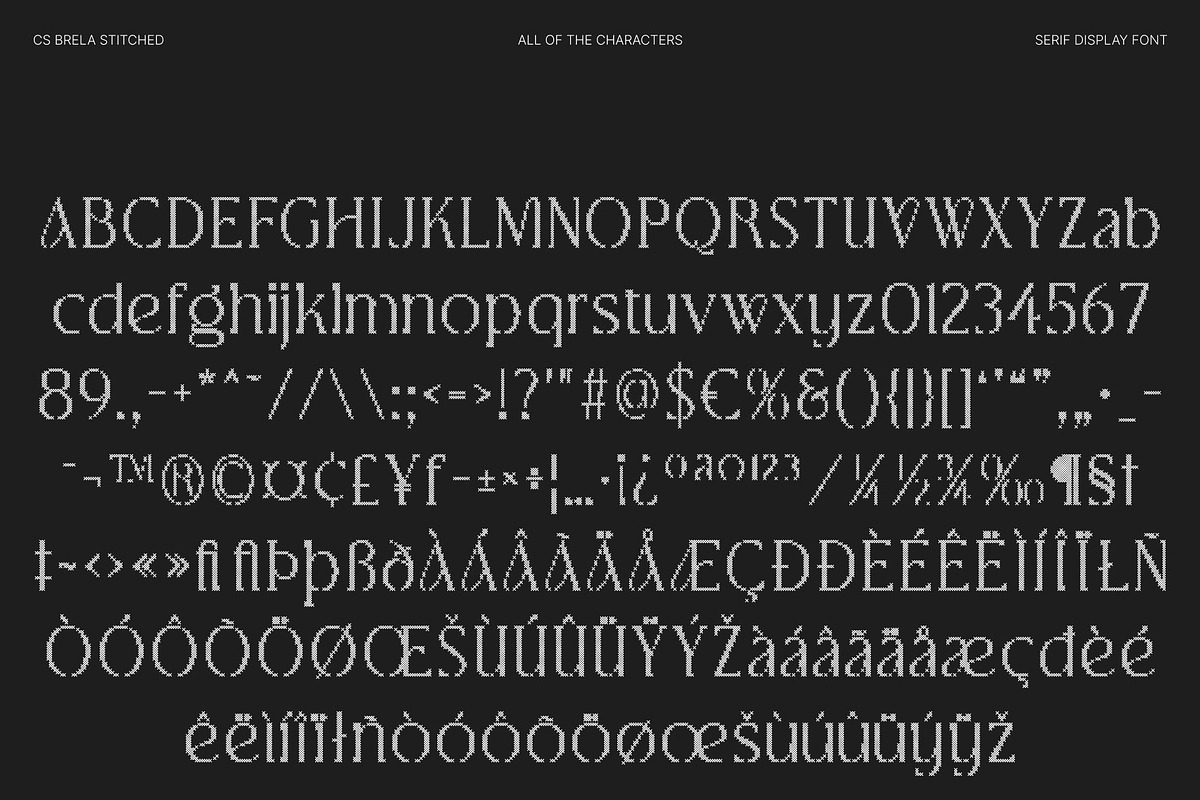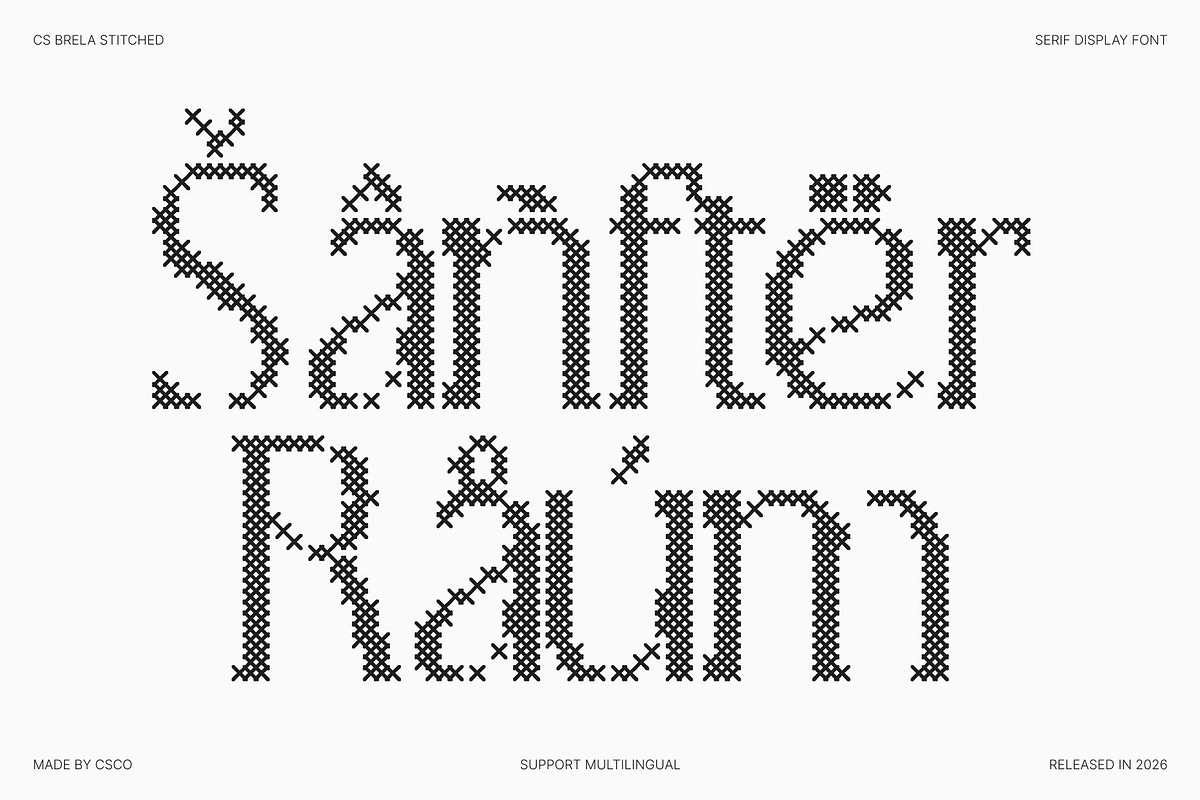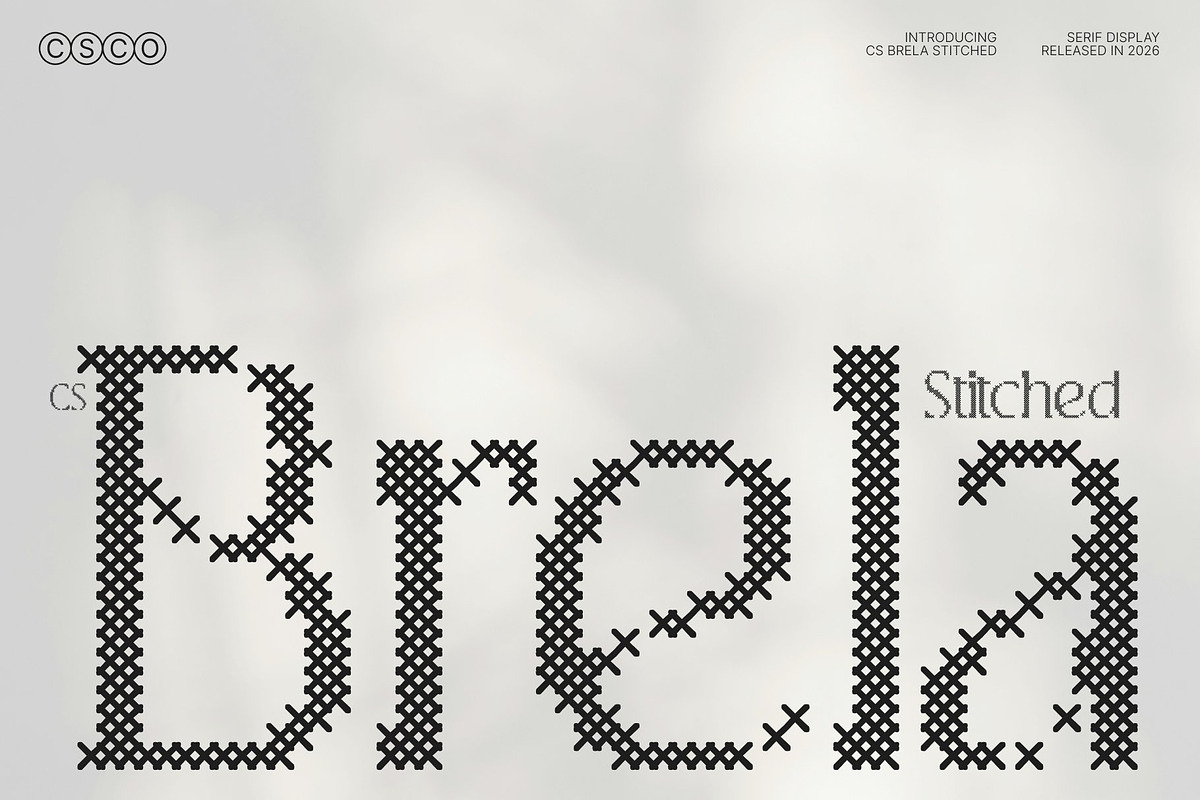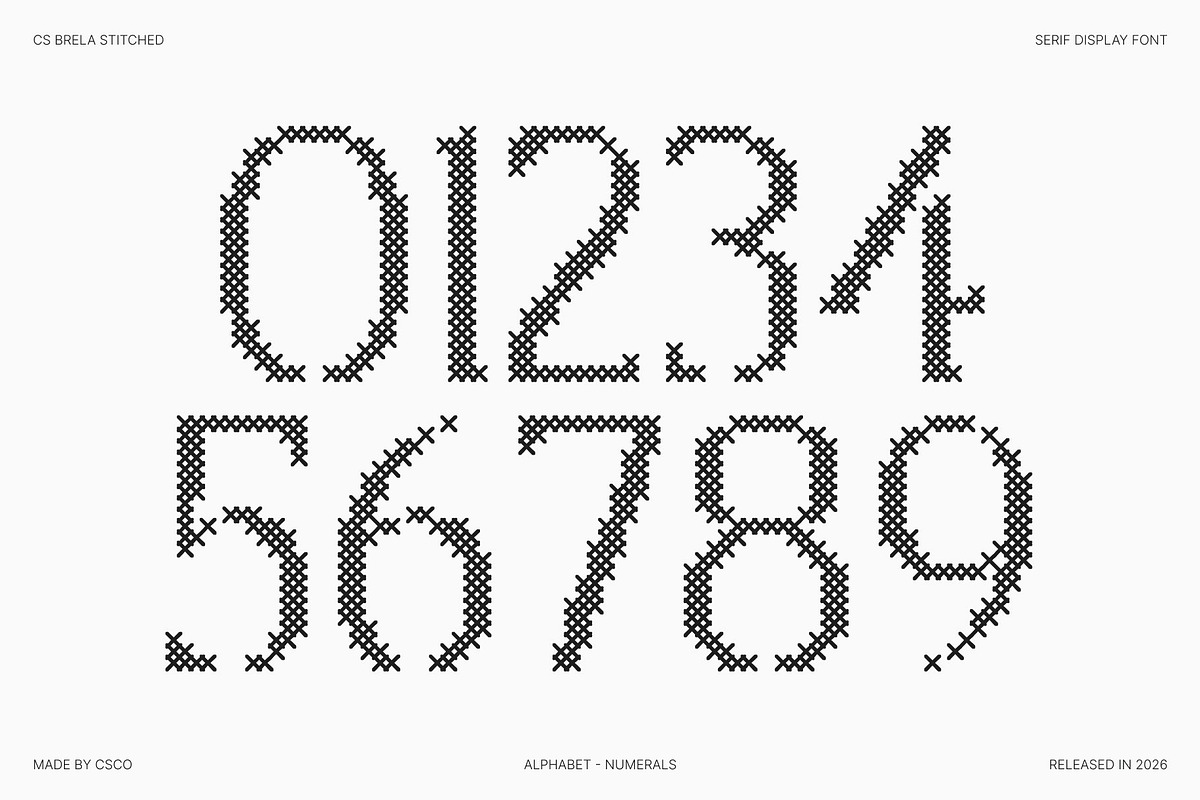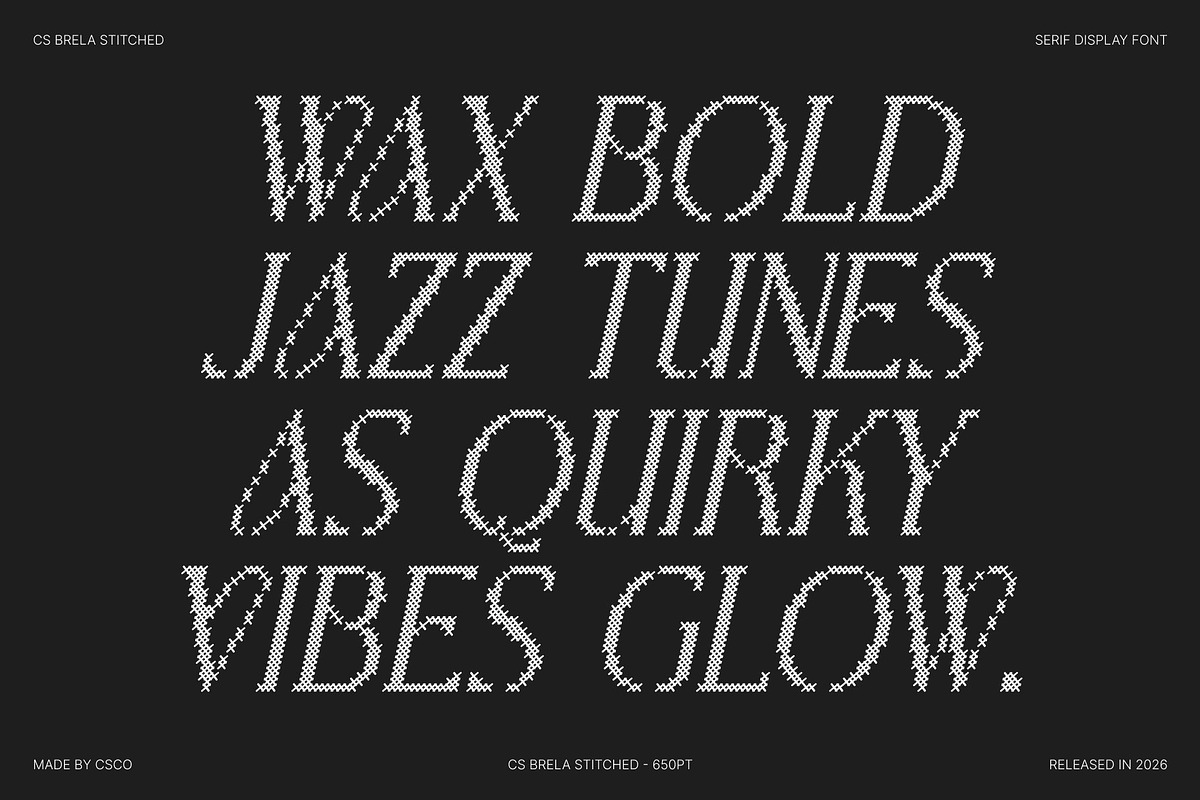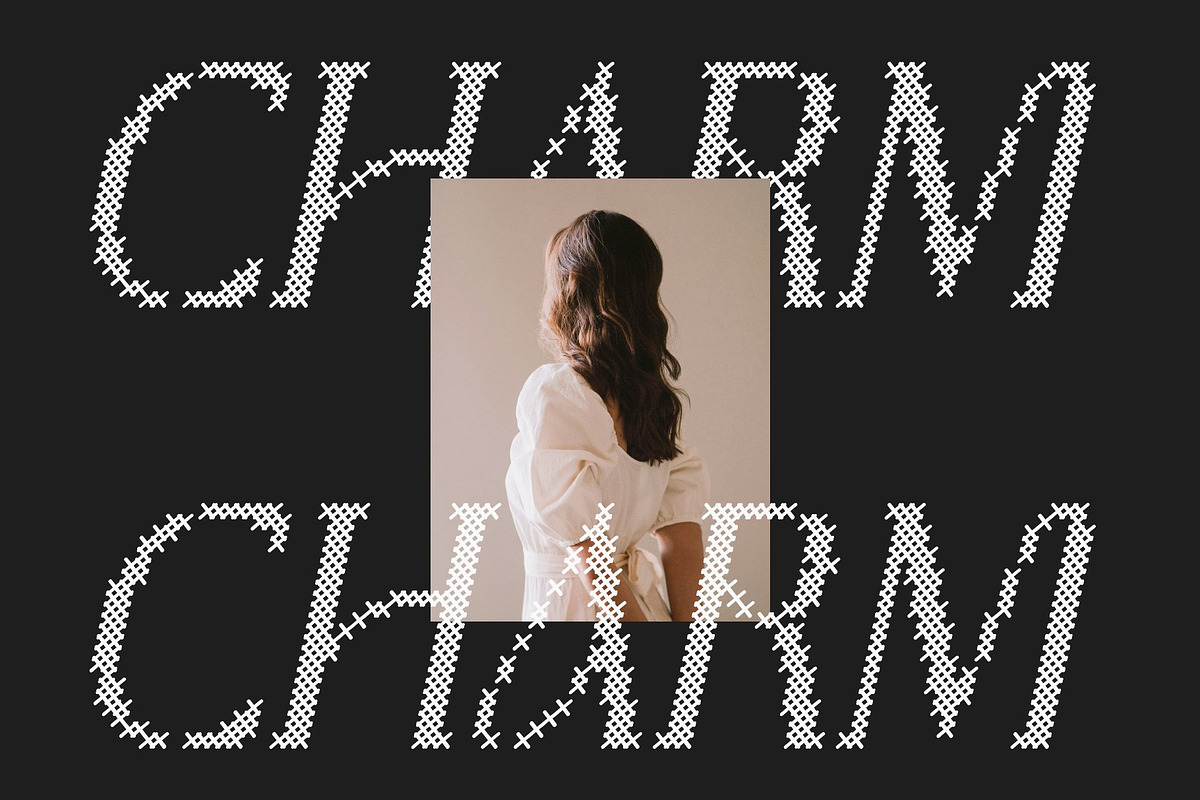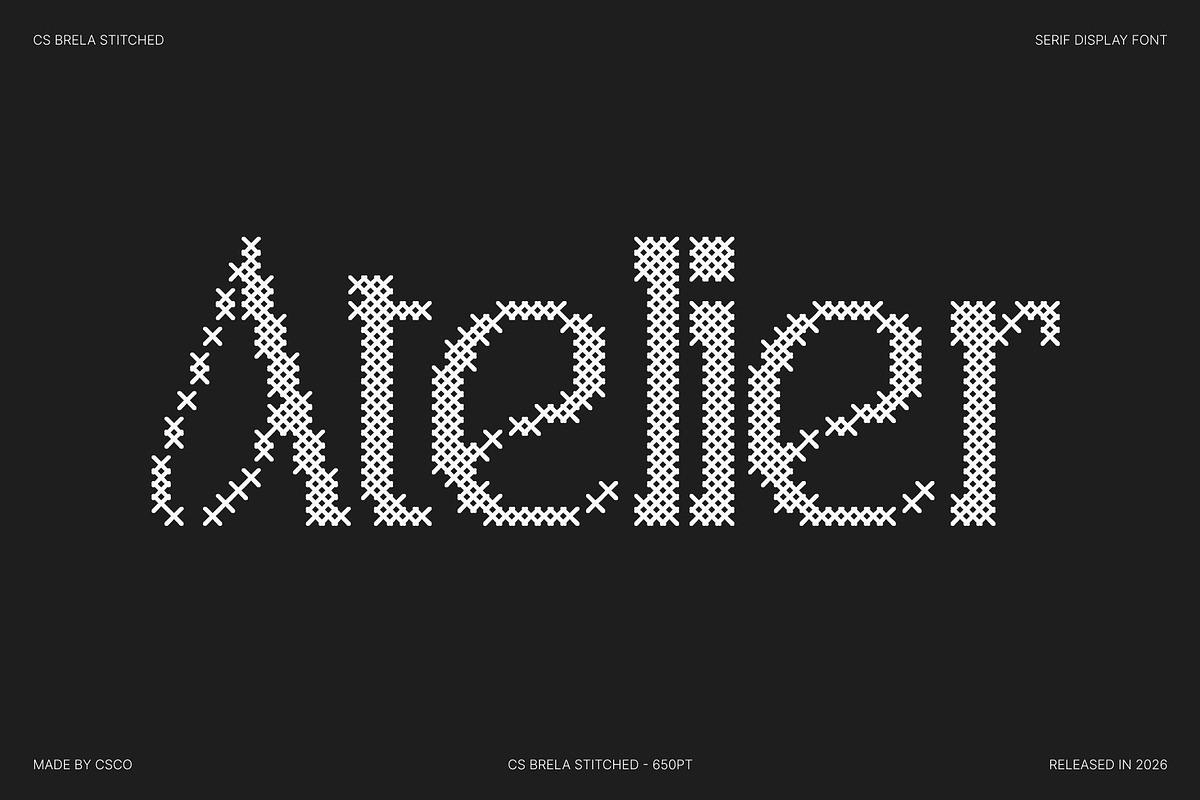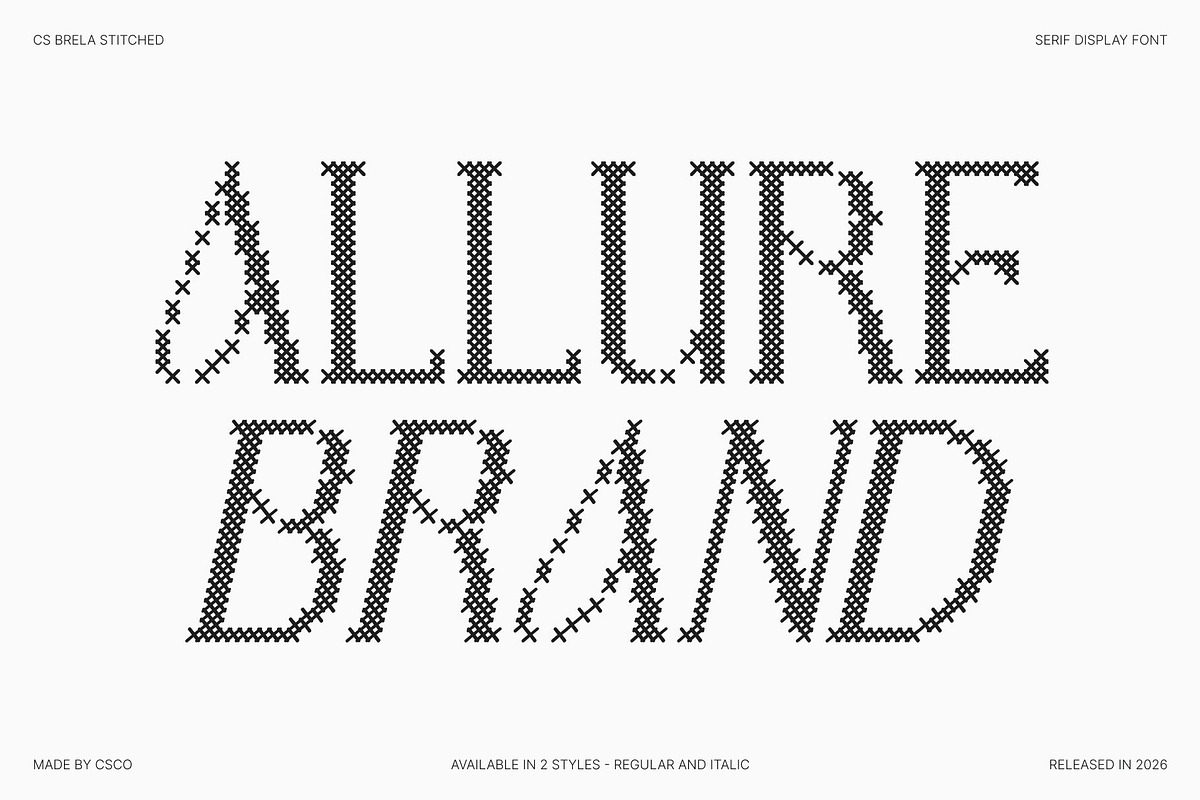
CS Brela Stitched
CS Brela Stitched – Elegant Serif with Playful Sophistication
Elegant Serif with Handcrafted Casual Charm This is an elegant serif font designed with simple, well-balanced letterforms that emphasize clarity and refinement. Its clean structure ensures excellent legibility, while subtle design nuances give it a relaxed and approachable personality. Enhanced with a stitched style inspired by thread sewn or embroidered on fabric.
Playful Ligatures with Embossed Stitch Detail One of the defining features of this font is its playful ligatures, thoughtfully crafted to add charm and expressive movement to the typography. A distinctive cross-shaped stitch pattern overlays the letterforms, creating an embossed, fabric-like texture that enhances depth and visual interest. This stitched detailing adds a classic, nostalgic, relaxed, and warm impression while maintaining the clarity and elegance of the design.
Simple Forms with Refined Elegance The strength of this font lies in its simplicity. Its straightforward letterforms provide a timeless foundation, while elegant serif details and stitched texture elevate the overall appearance. This harmonious balance between minimal structure and decorative nuance makes the font versatile and visually engaging across a wide range of design styles.
Perfect for Fashion and Luxury Branding This is ideal for fashion branding, logos, posters, packaging, and elegant social media visuals. Its blend of casual elegance, playful ligatures, and handcrafted stitched detail creates a graceful and fashionable typographic voice that communicates creativity, sophistication, and modern style with clarity and charm.
CS Brela Stitched Regular
CS Brela Stitched Italic